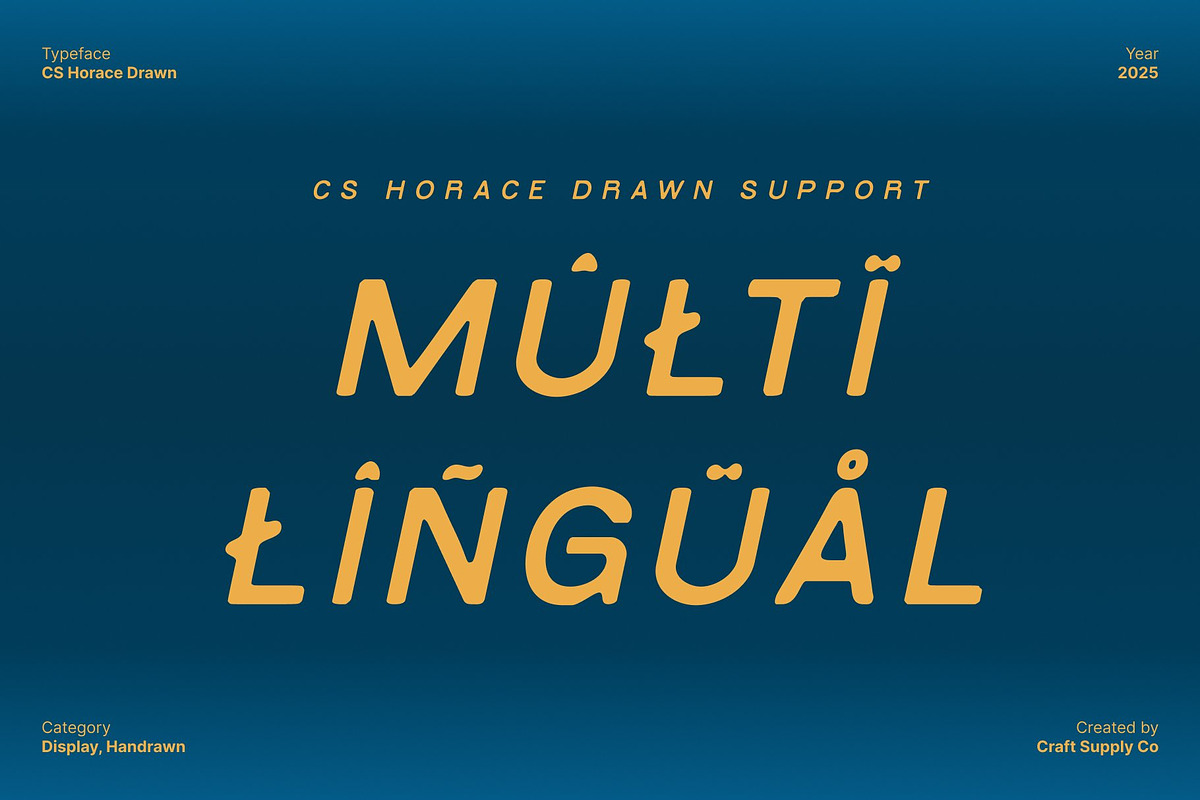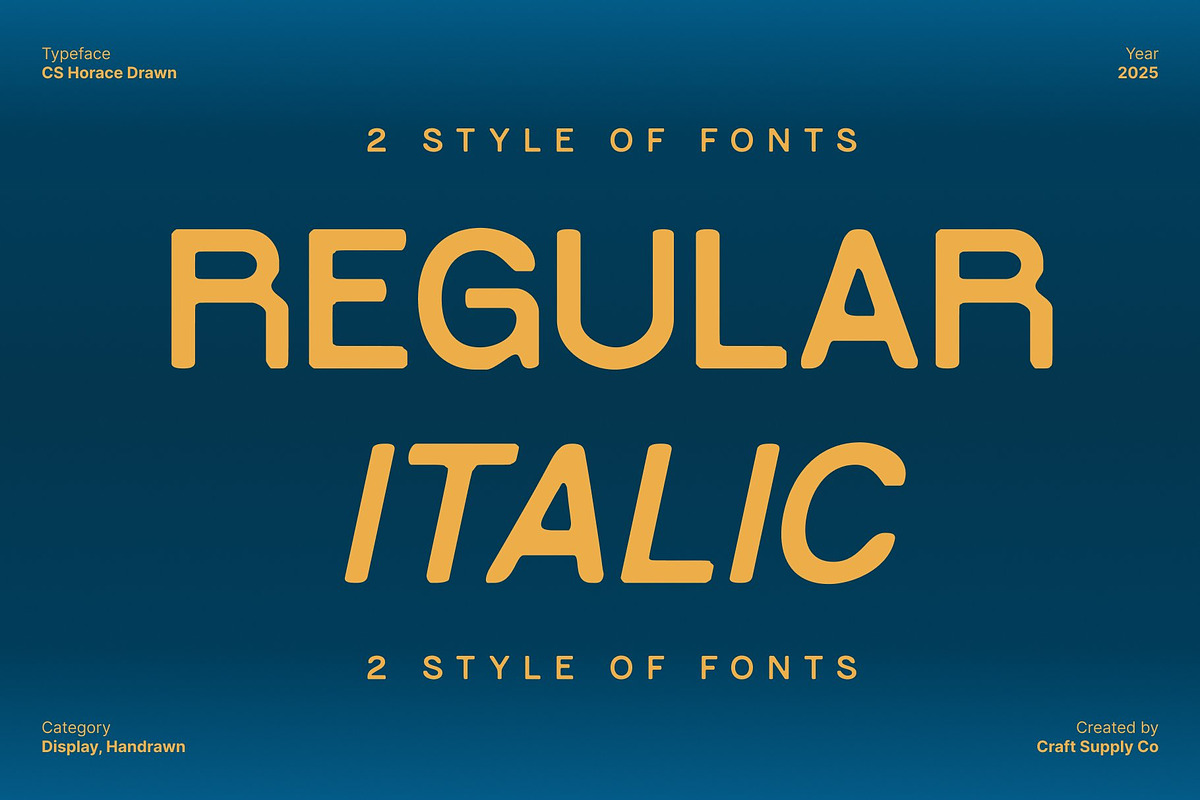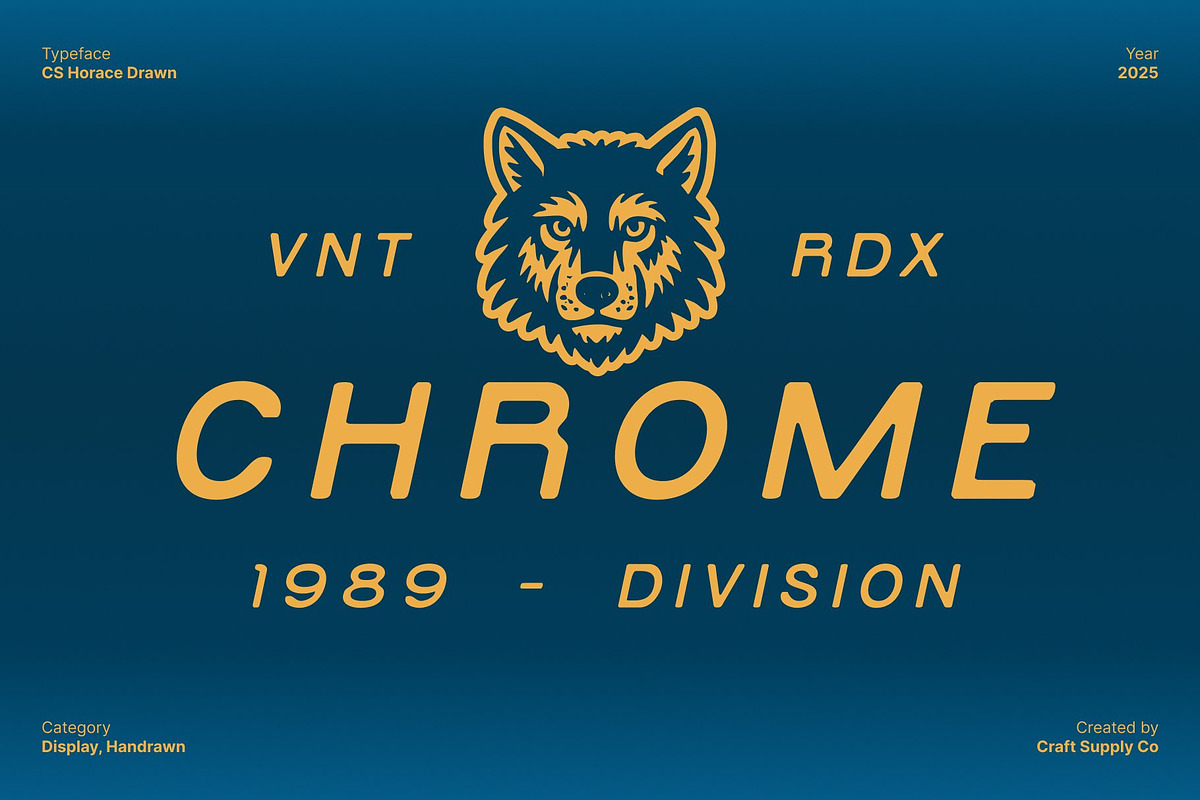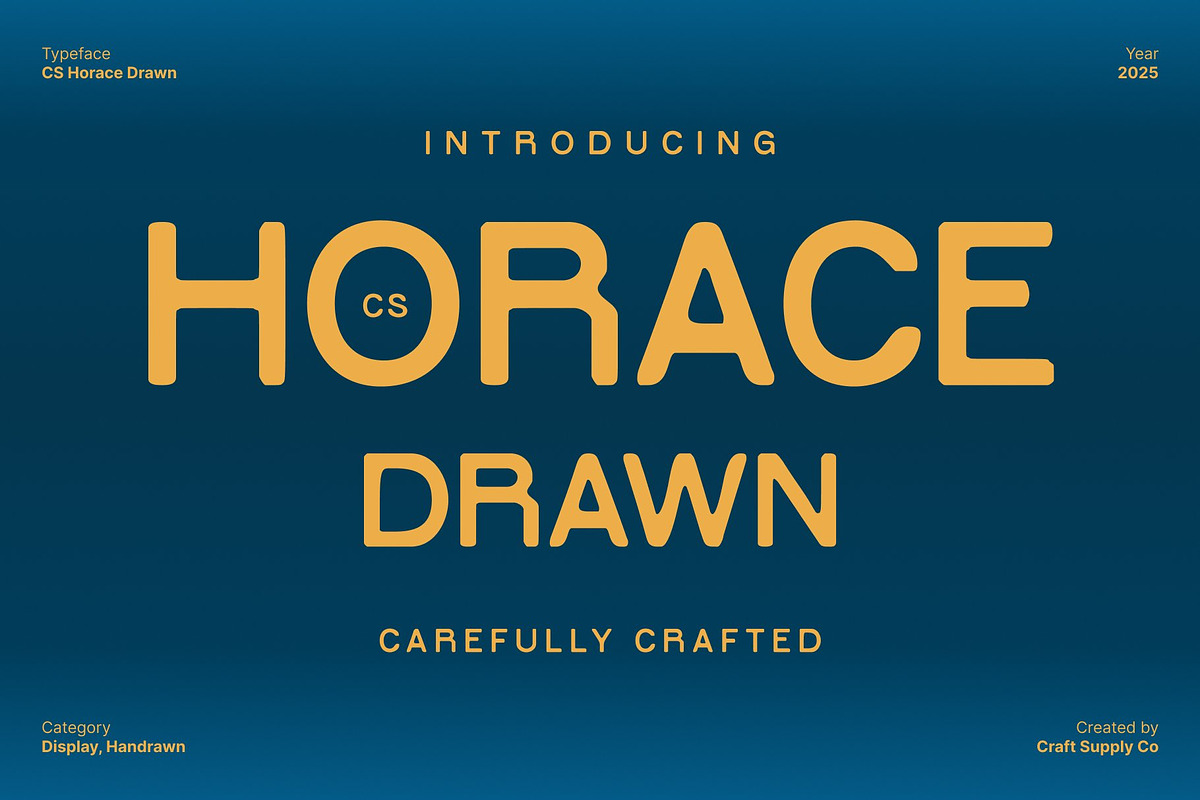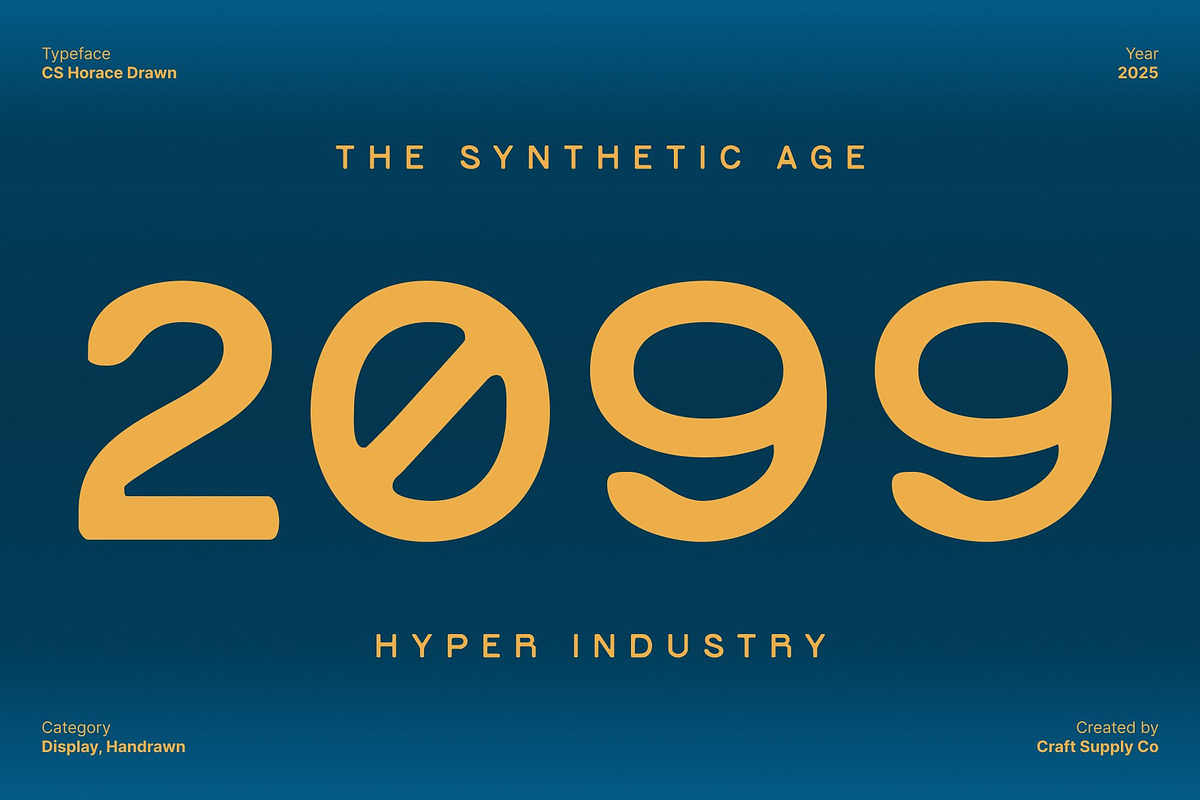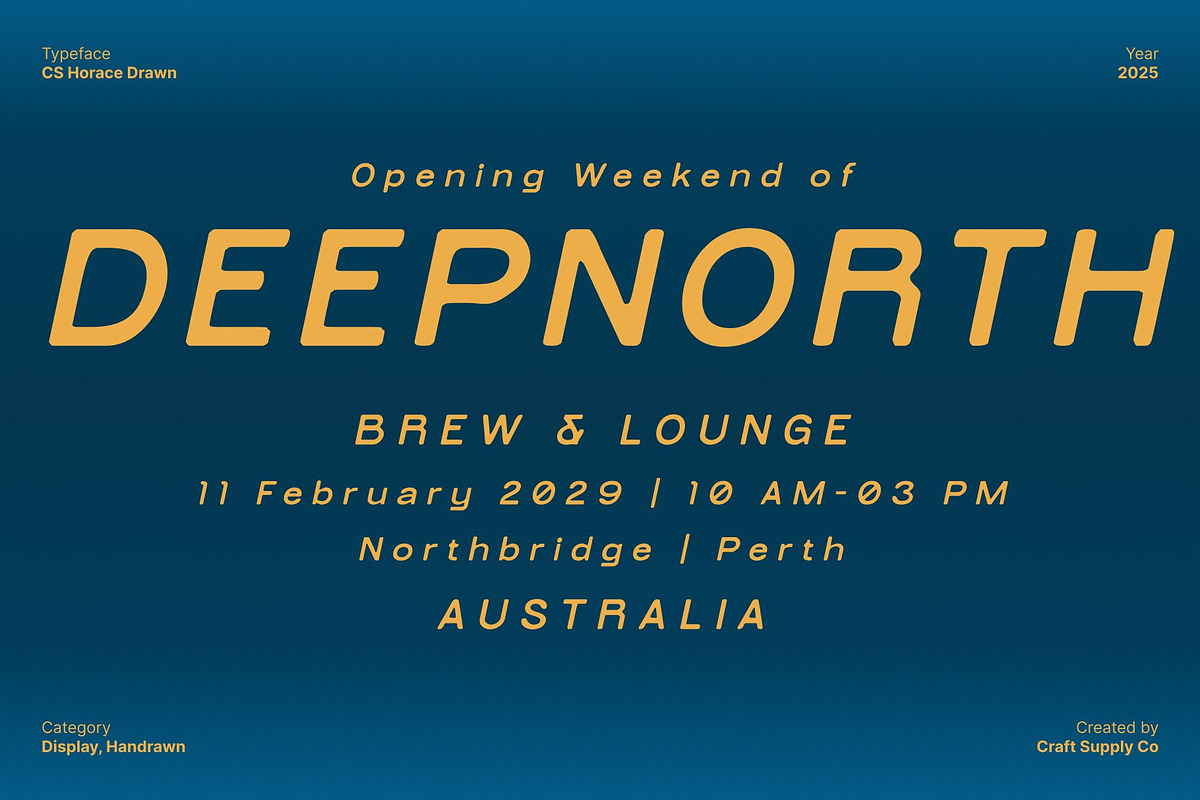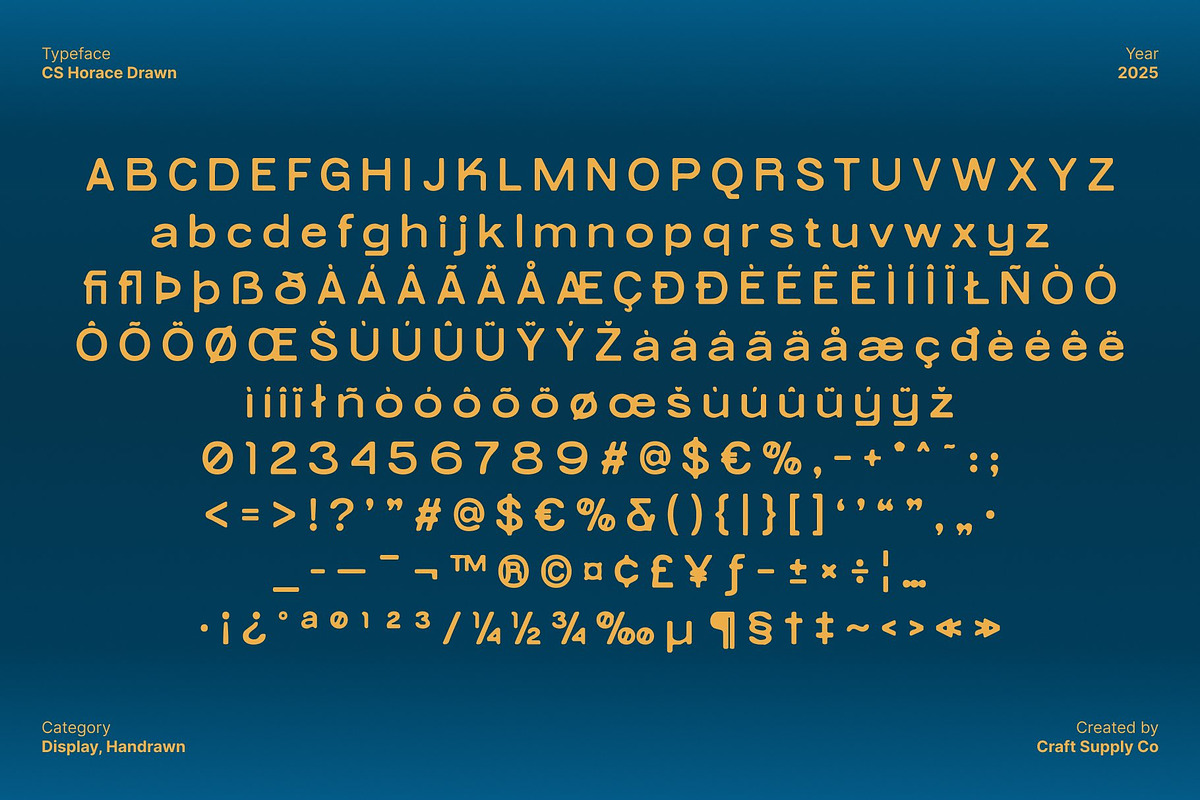
CS Horace Drawn
CS Horace Drawn – Industrial Sans Serif with Rugged Handcrafted Edge
Rugged Industrial Design with Contemporary Strength This is an industrial-style sans serif font designed to convey power, strength, and modern masculinity. Its bold, structured forms project confidence and stability, making it ideal for designs that need a commanding, contemporary presence.
Expressive Letterforms with Handcrafted Finish The drawn texture adds a distinctive handmade quality, giving the font character and authenticity. Each letter feels tactile and expressive, adding depth and personality to the geometric industrial forms, while maintaining a professional and bold visual identity.
Masculine and Powerful for Impactful Designs With strong lines and assertive shapes, this font delivers visual weight that demands attention. Perfect for headlines, posters, packaging, or branding, it communicates rugged sophistication and industrial energy without compromising readability or style.
Versatile for Branding, Packaging, and Editorial Projects This font excels in applications requiring bold presence and expressive character. From branding campaigns and product packaging to editorial layouts and impactful headlines, its combination of industrial structure and handcrafted texture ensures designs feel strong, contemporary, and memorably distinct.